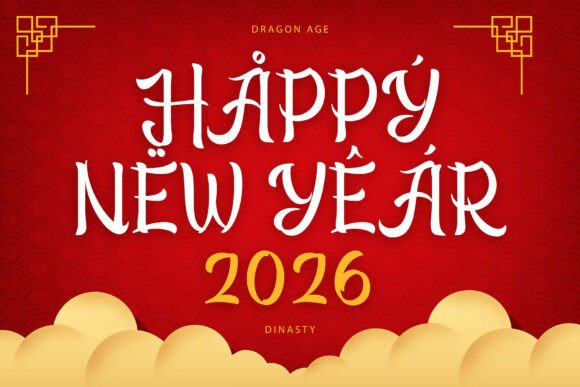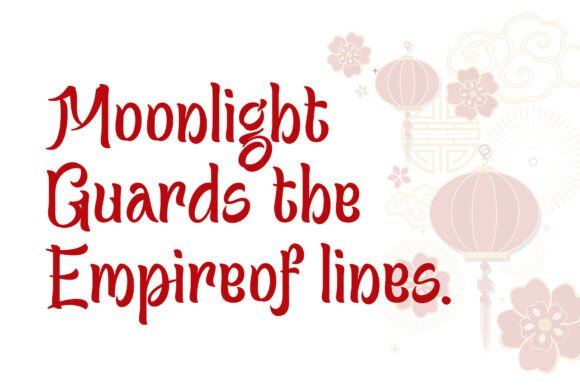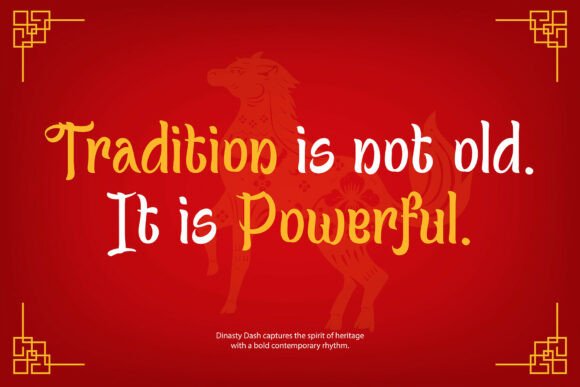
Introduction to Dynasty Dash Font
Dynasty Dash is a bold Chinese brush display typeface inspired by traditional calligraphy and festive Lunar New Year aesthetics, blending heritage elegance with a modern decorative rhythm.
Designed with expressive brush strokes, dynamic curves, and handcrafted details, this font captures the spirit of celebration, prosperity, and cultural pride It comes complete with uppercase and lowercase letters, numerals, punctuation, stylistic alternates, ligatures, and multilingual support, allowing designers to create authentic and eye-catching compositions.
Key Features of Dynasty Dash Font
Why Choose Dynasty Dash Font?